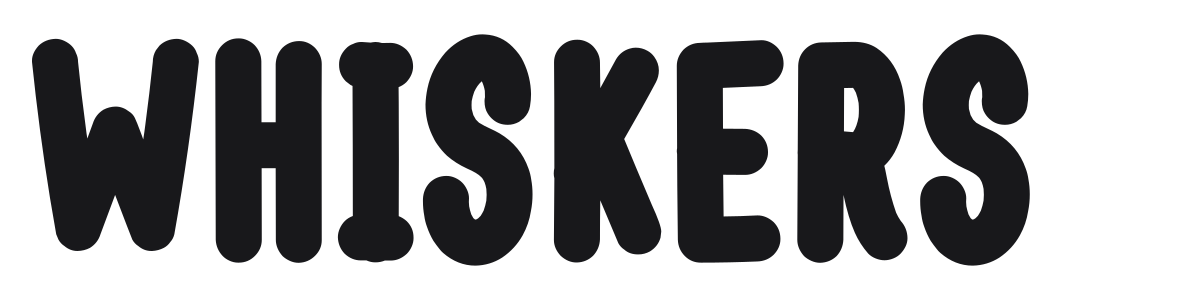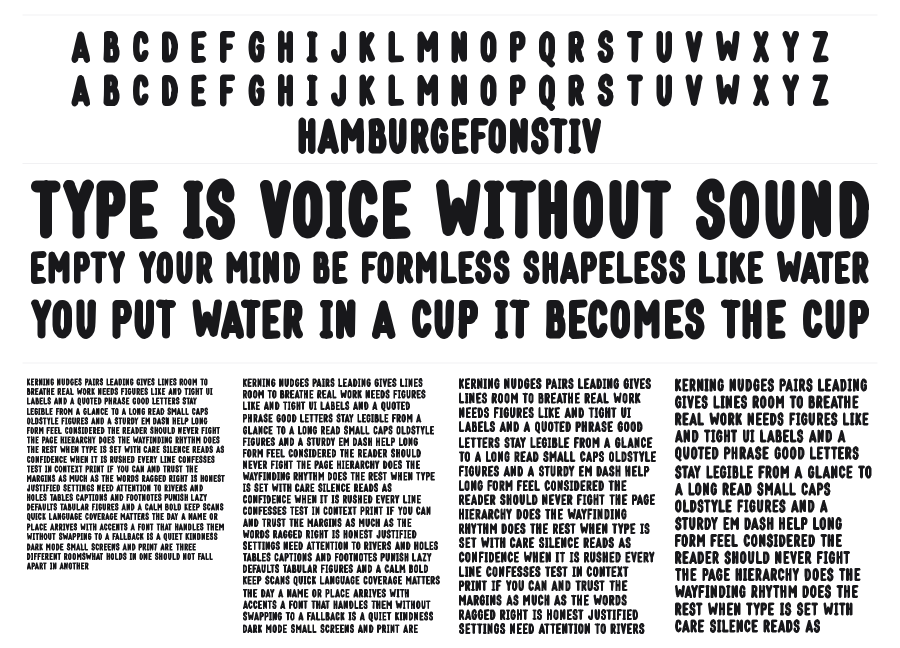
Whiskers
by Hanna Bie
Whiskers is a bold condensed display font with rounded, inflated stroke terminals that give it an unmistakably bubbly, cartoon quality. The heavy weight and tight proportions pack strong visual impact at large sizes. It works well across children's media, food packaging, and anywhere a design needs high energy and a light touch.